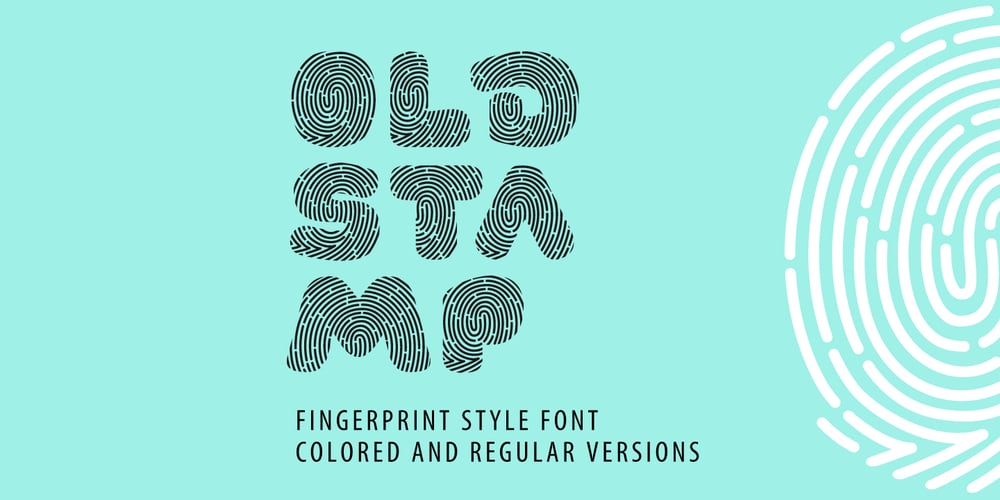
Old Stamp
Old Stamp font
Old Stamp Font Family was designed by Roman Korolev and published by Kaer. Old Stamp contains 3 styles and family package options. Introducing my new fingerprint typeface OldStamp. In addition to the Regular style, I added two more color styles. Typeface for casino labels, nightlife headlines, bright posters, detective cards, biometric access etc.What’s included?* Regular, Violet and Green styles * Only uppercase* Numbers* Symbols* PunctuationI hope you enjoy this font. Follow my shop to receive updates of products and the very hottest news! If you have any question or issue, please contact me: kaer.pro@gmail.com Please request to add additional characters and glyphs if you need! Thank you!